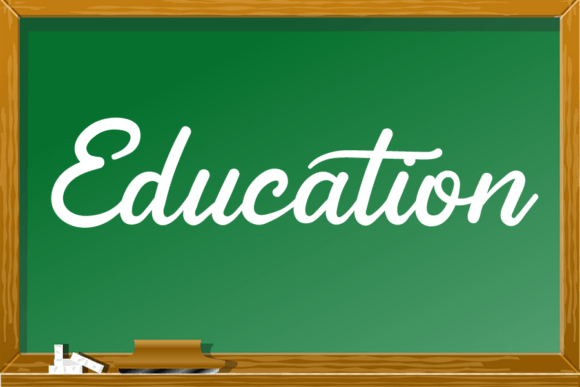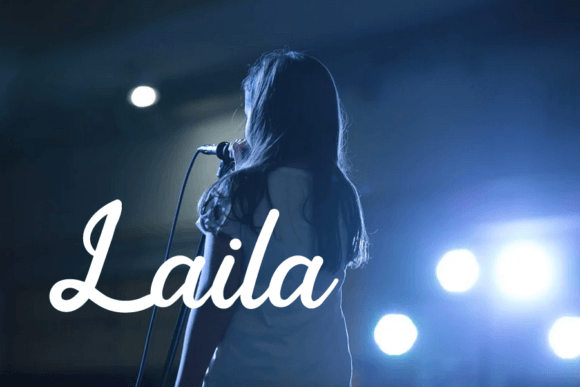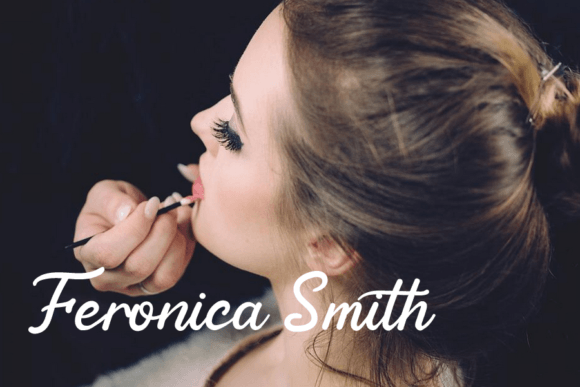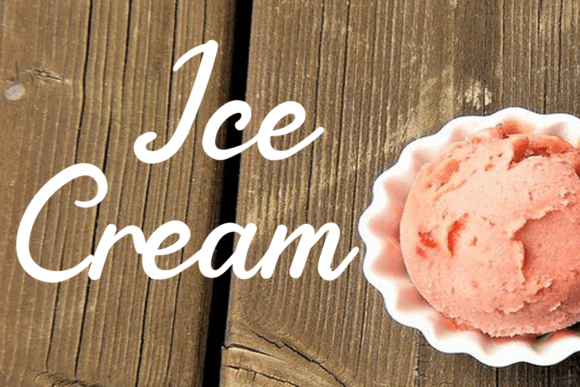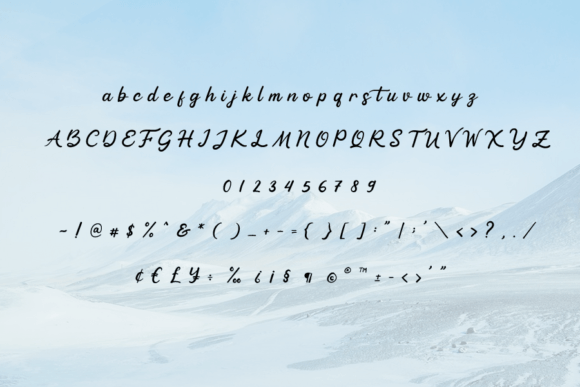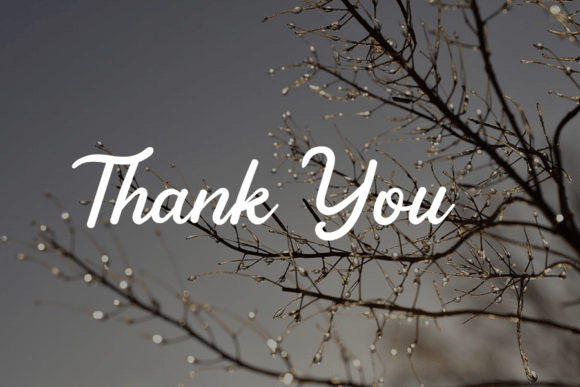
**Black Eagle: A Lovely and Sweet Handwritten Script Font**
**Black Eagle** is a lovely and sweet handwritten script font that exudes a gentle and charming quality. This font’s gentle and romantic touch makes it an excellent choice for a wide range of design ideas, adding a joyful and delightful vibe to your projects.
The charm of **Black Eagle** lies in its handwritten letterforms, which convey a sense of warmth and intimacy. This font is perfect for creating designs that resonate with a sense of love and romance.
**Black Eagle** is versatile and adaptable, making it suitable for various design applications. Whether you’re working on greeting cards, invitations, social media graphics, or any other creative project, this font enhances your work with its sweet and gentle character.
In greeting cards and invitations, **Black Eagle** adds a romantic and delightful touch, making your messages even more heartfelt.
For social media graphics and promotional materials, this font brings a friendly and approachable vibe, connecting with your audience.
In conclusion, **Black Eagle** is a font that brings a lovely and sweet charm to your design projects. Its gentle and romantic quality makes it an ideal choice for creating designs that evoke joy and warmth. Embrace the sweetness of **Black Eagle** and let your creativity shine with a touch of love and delight.